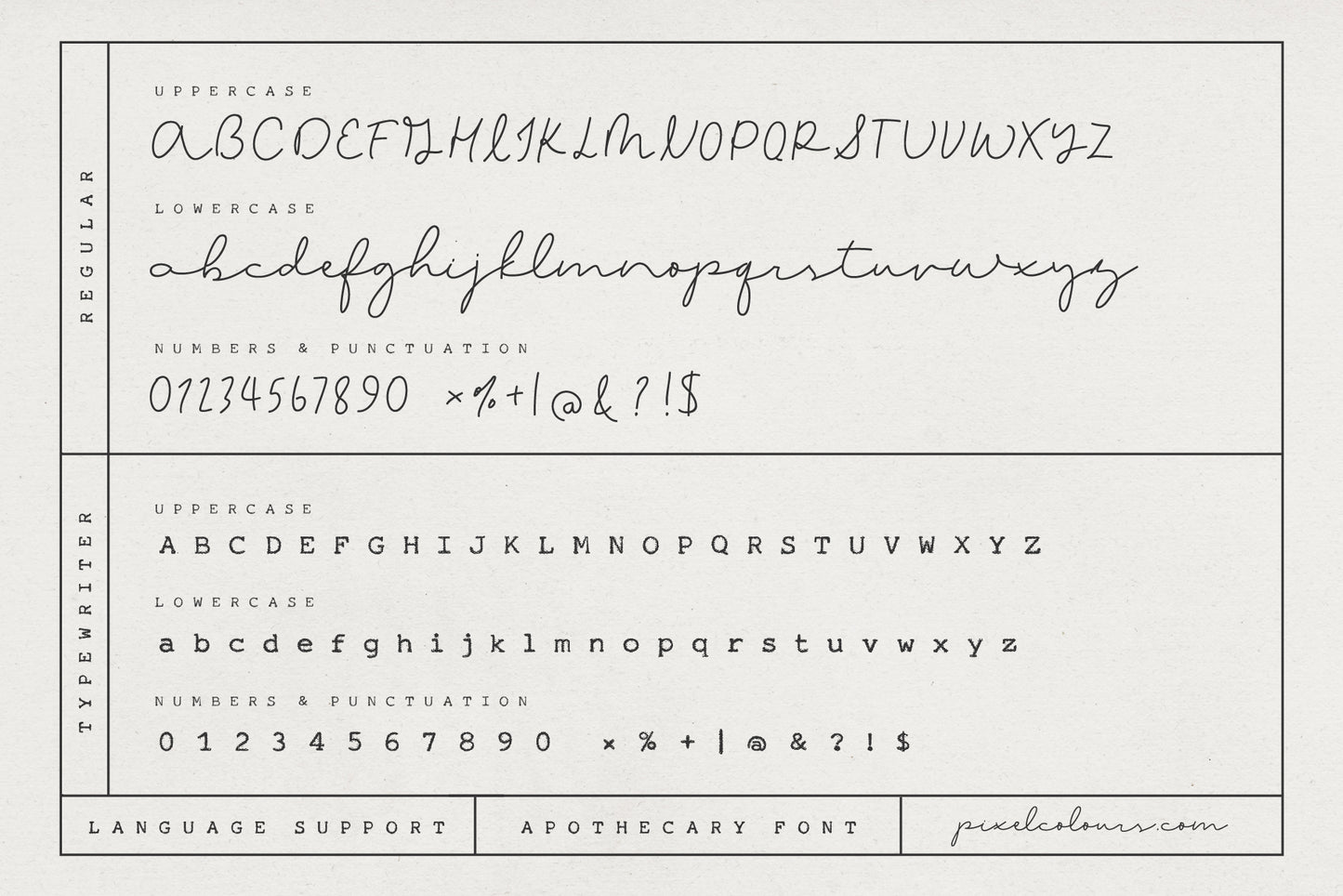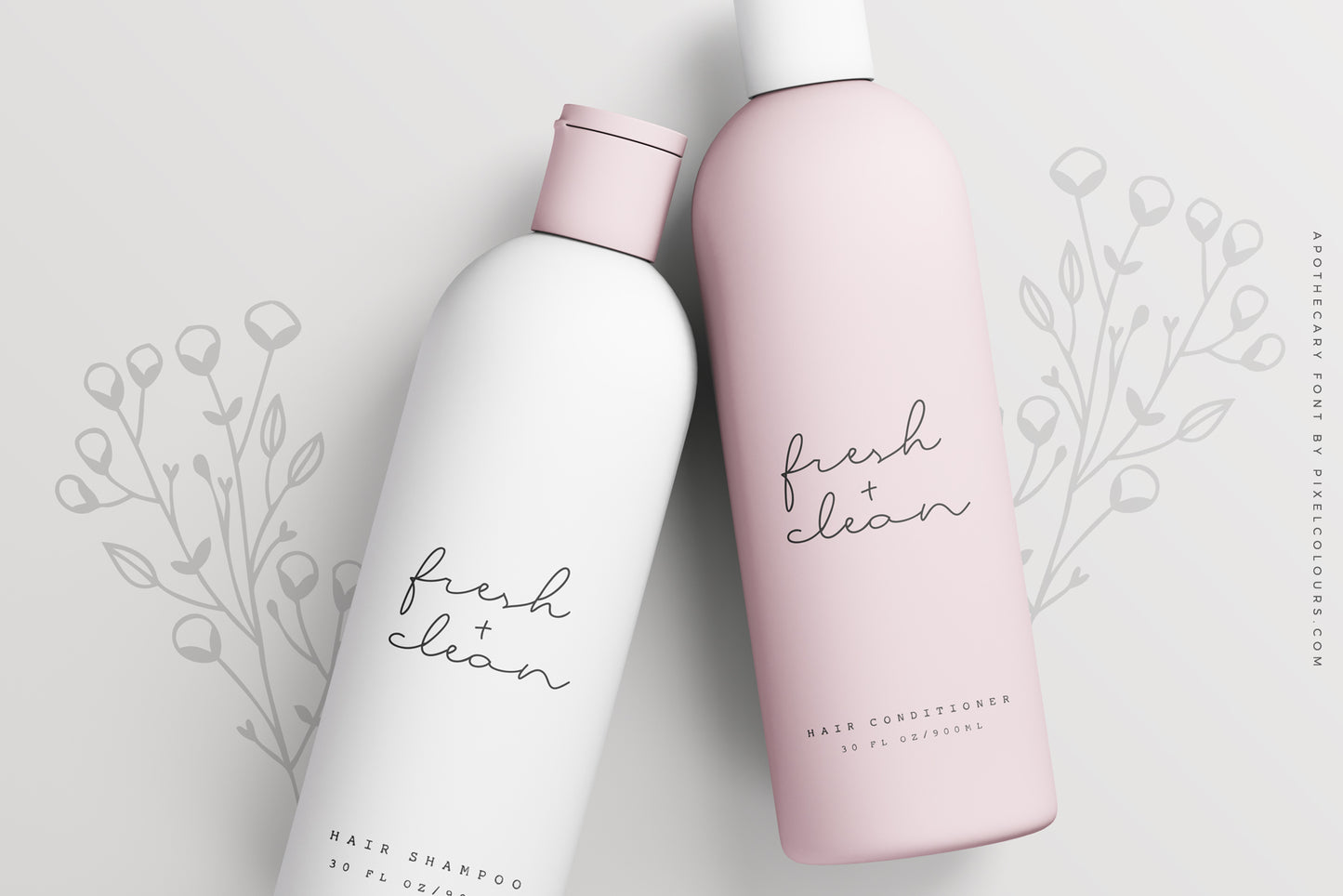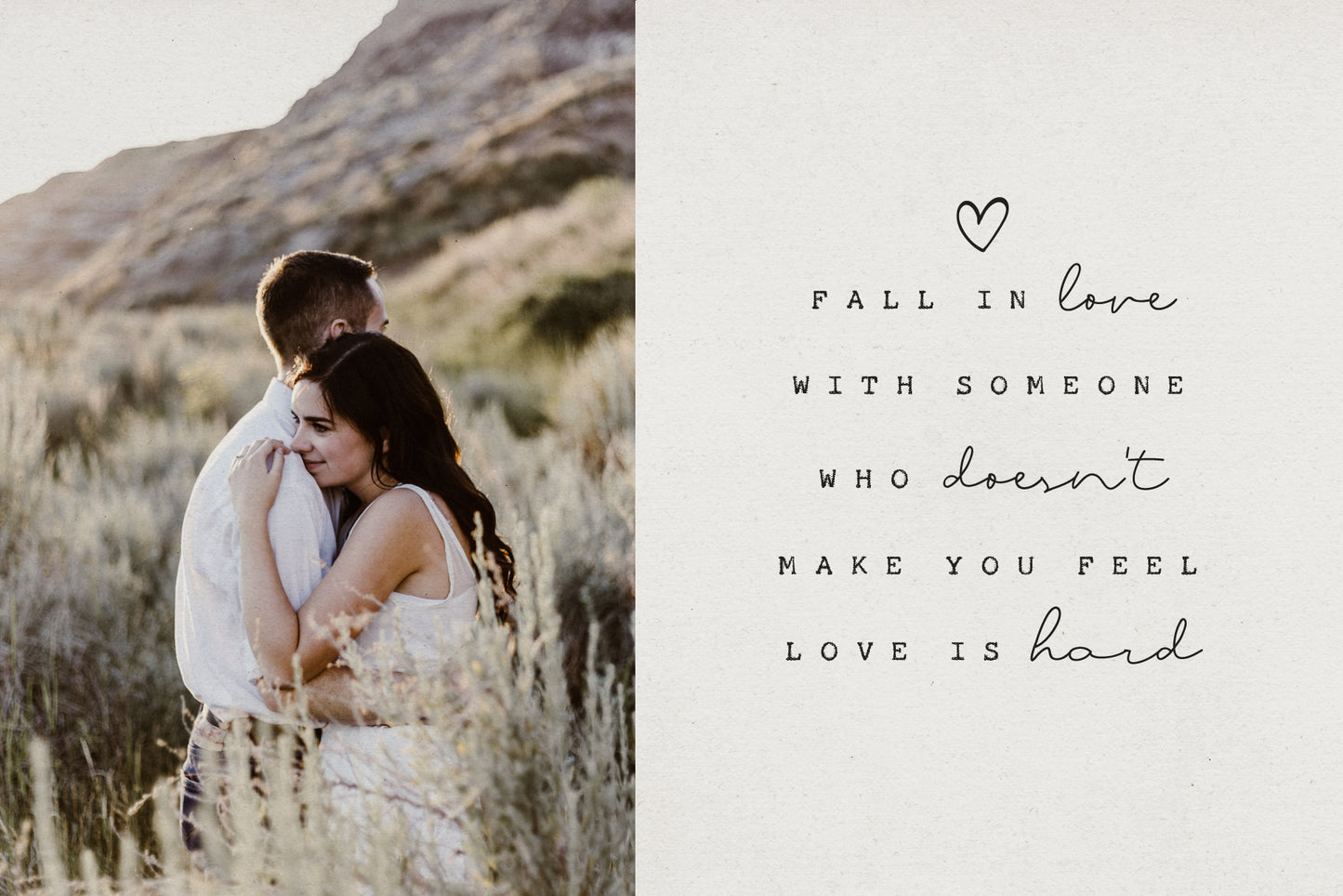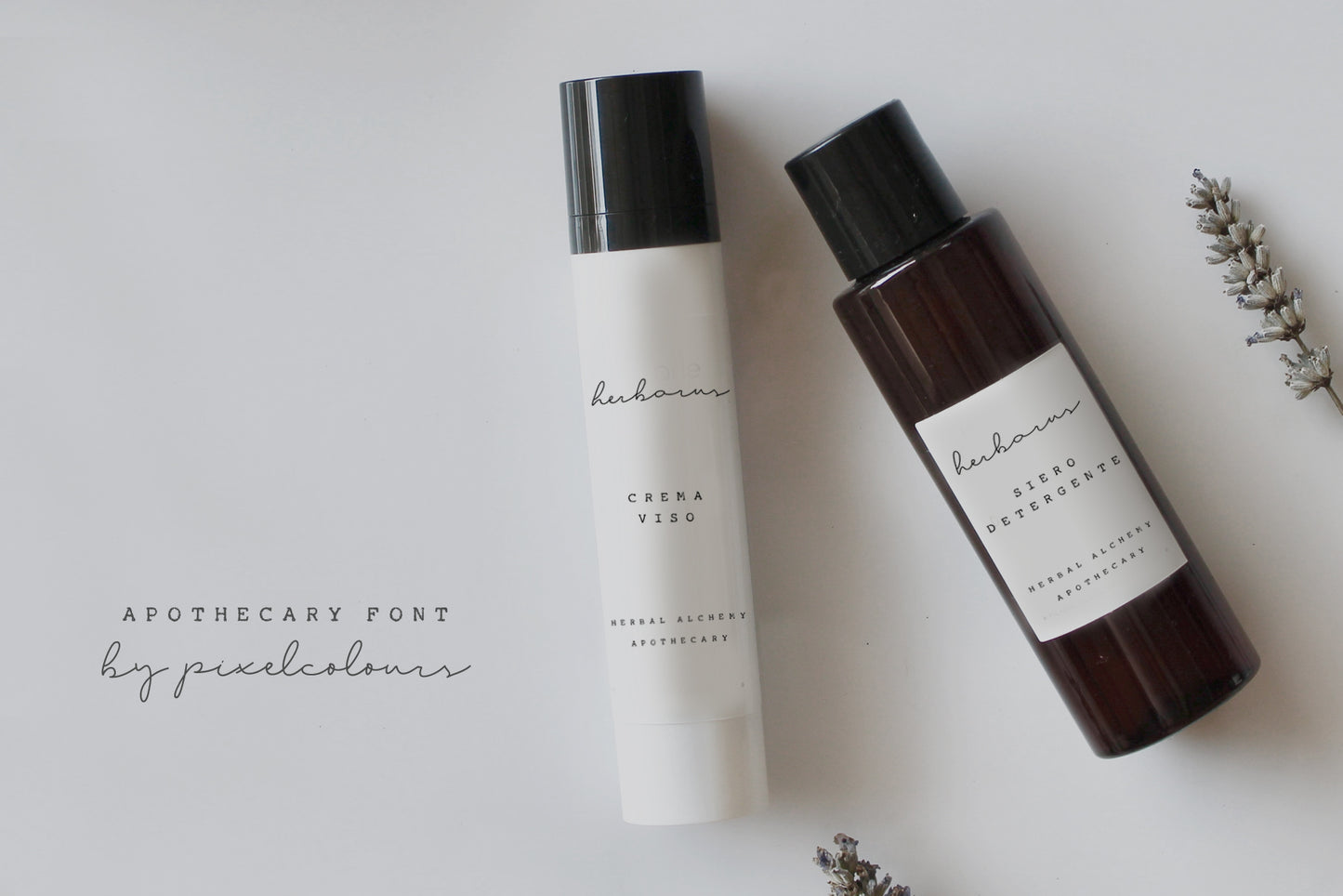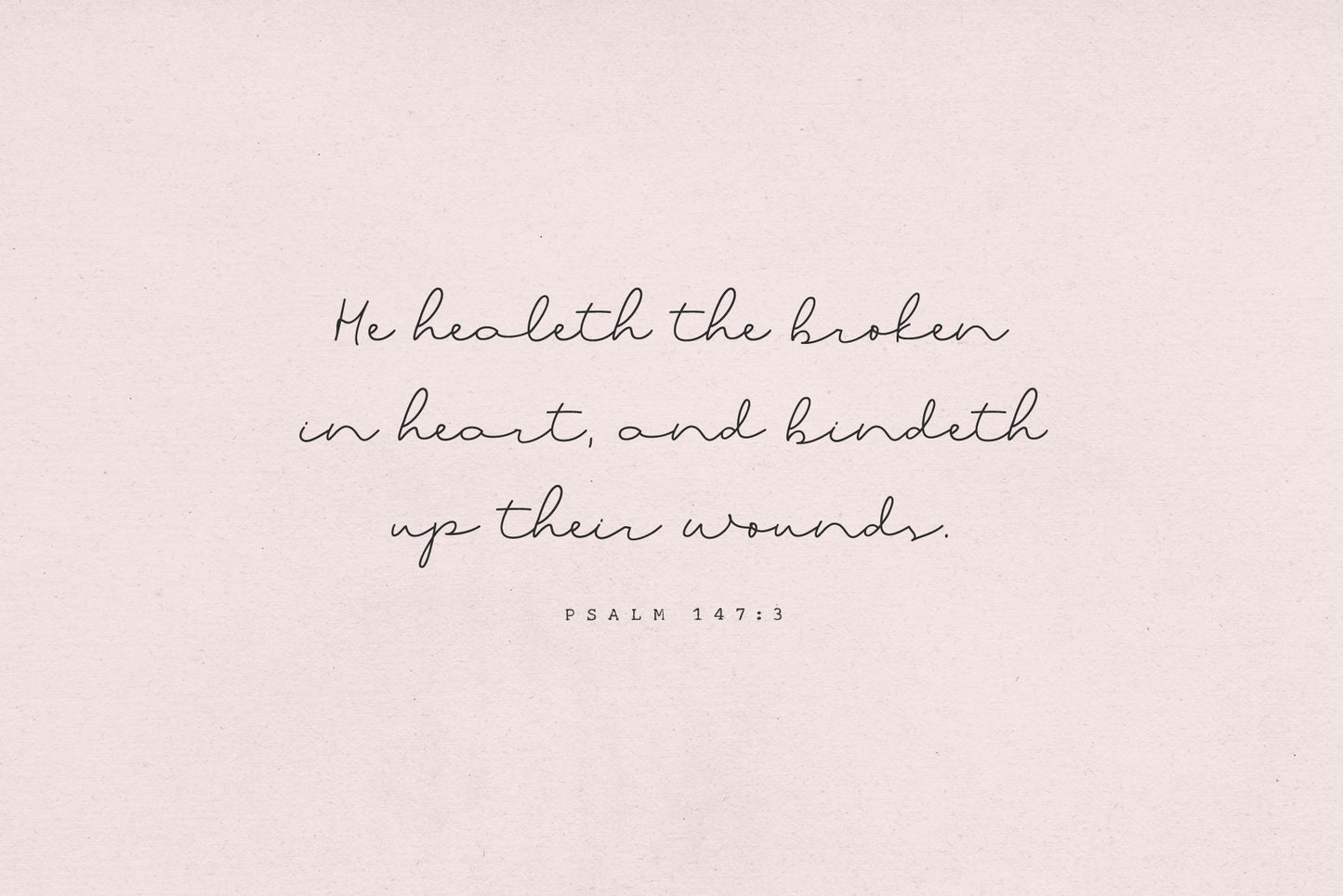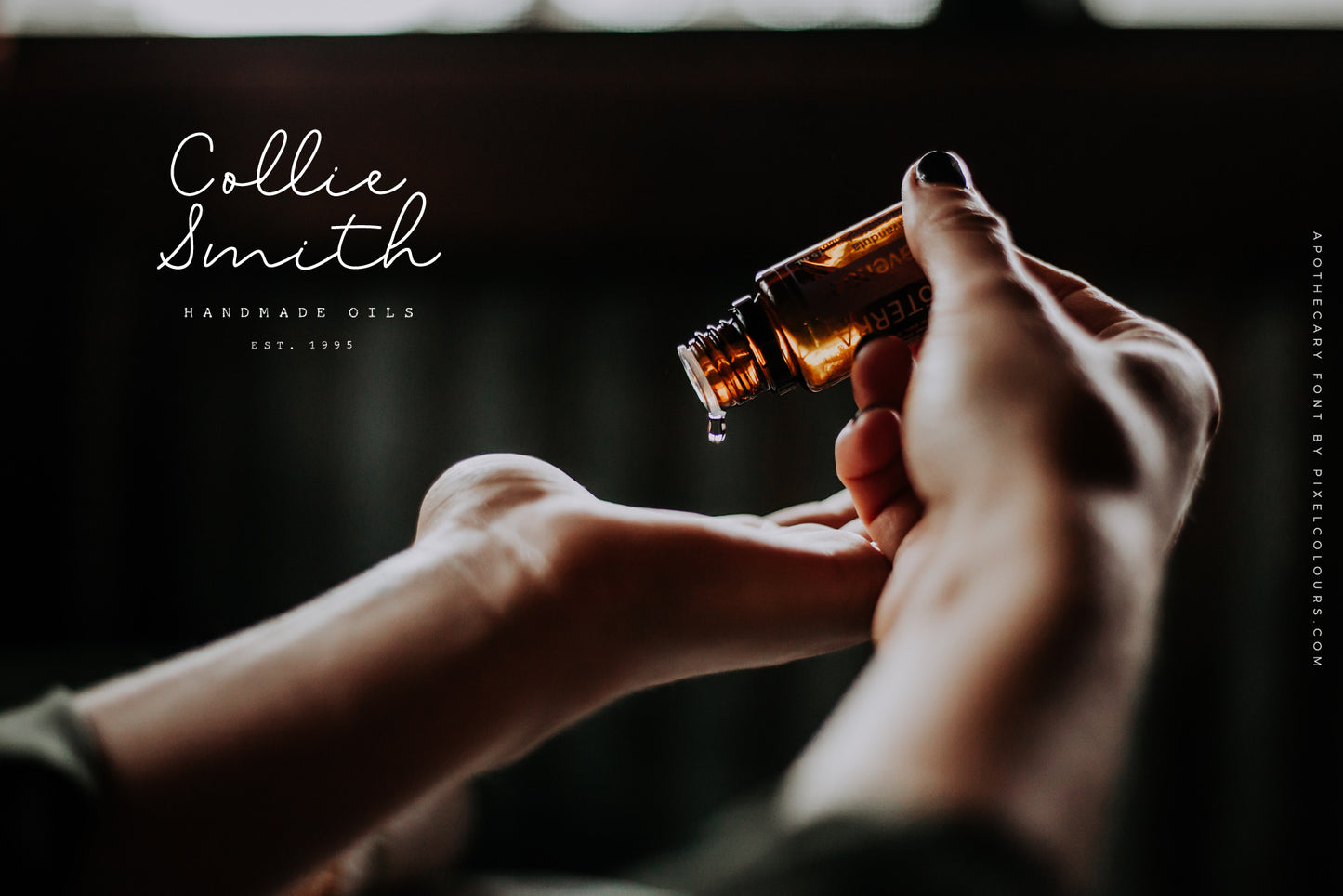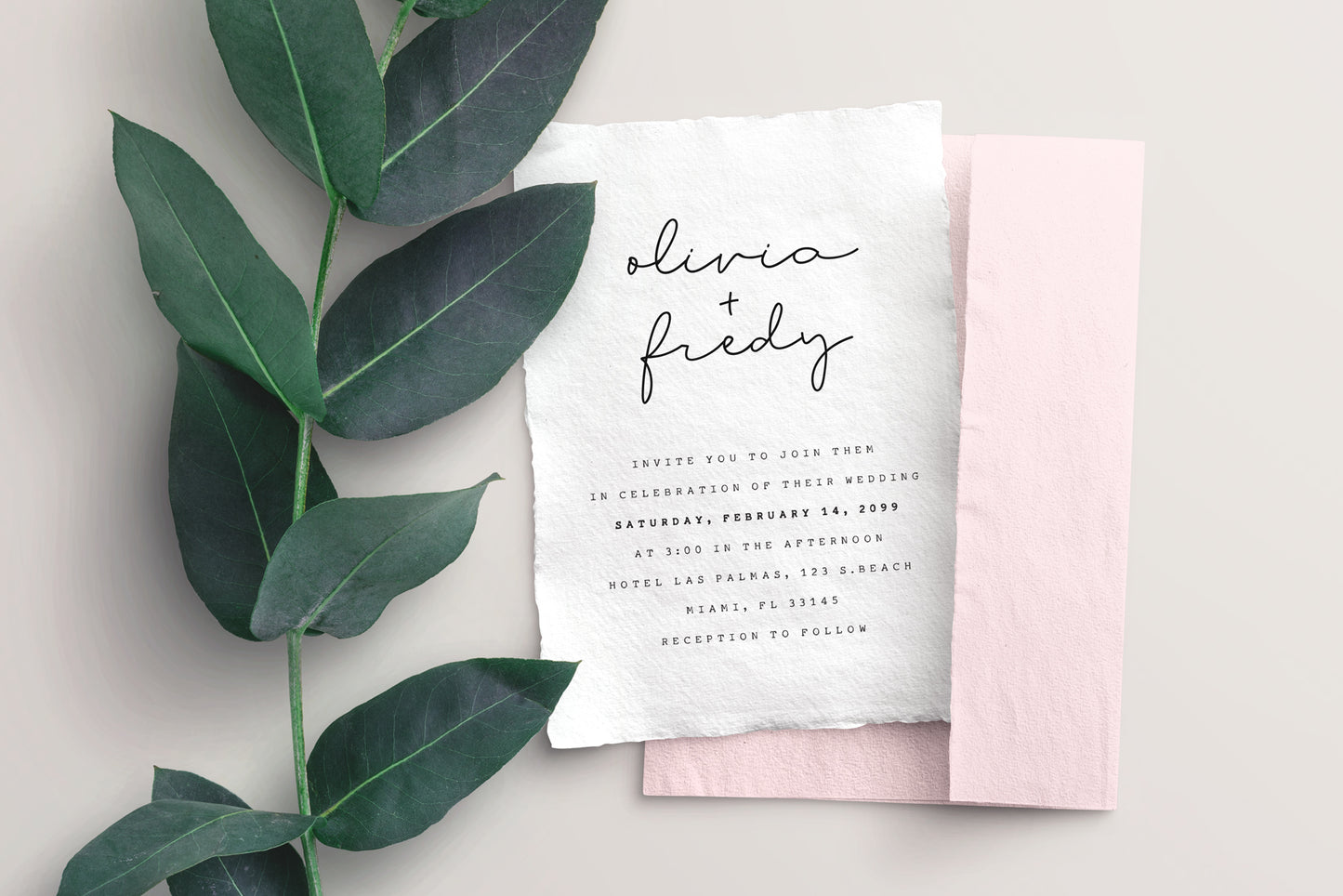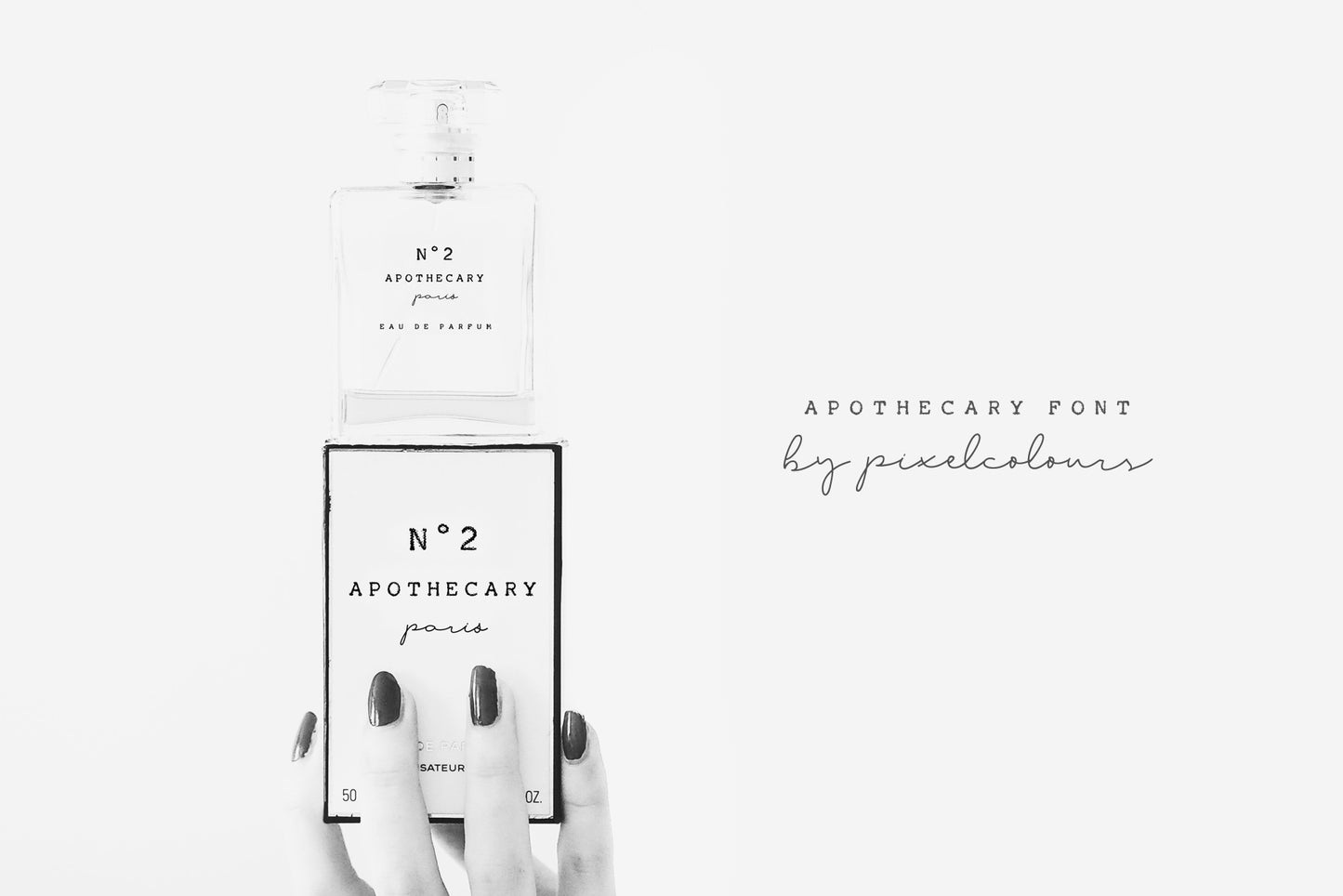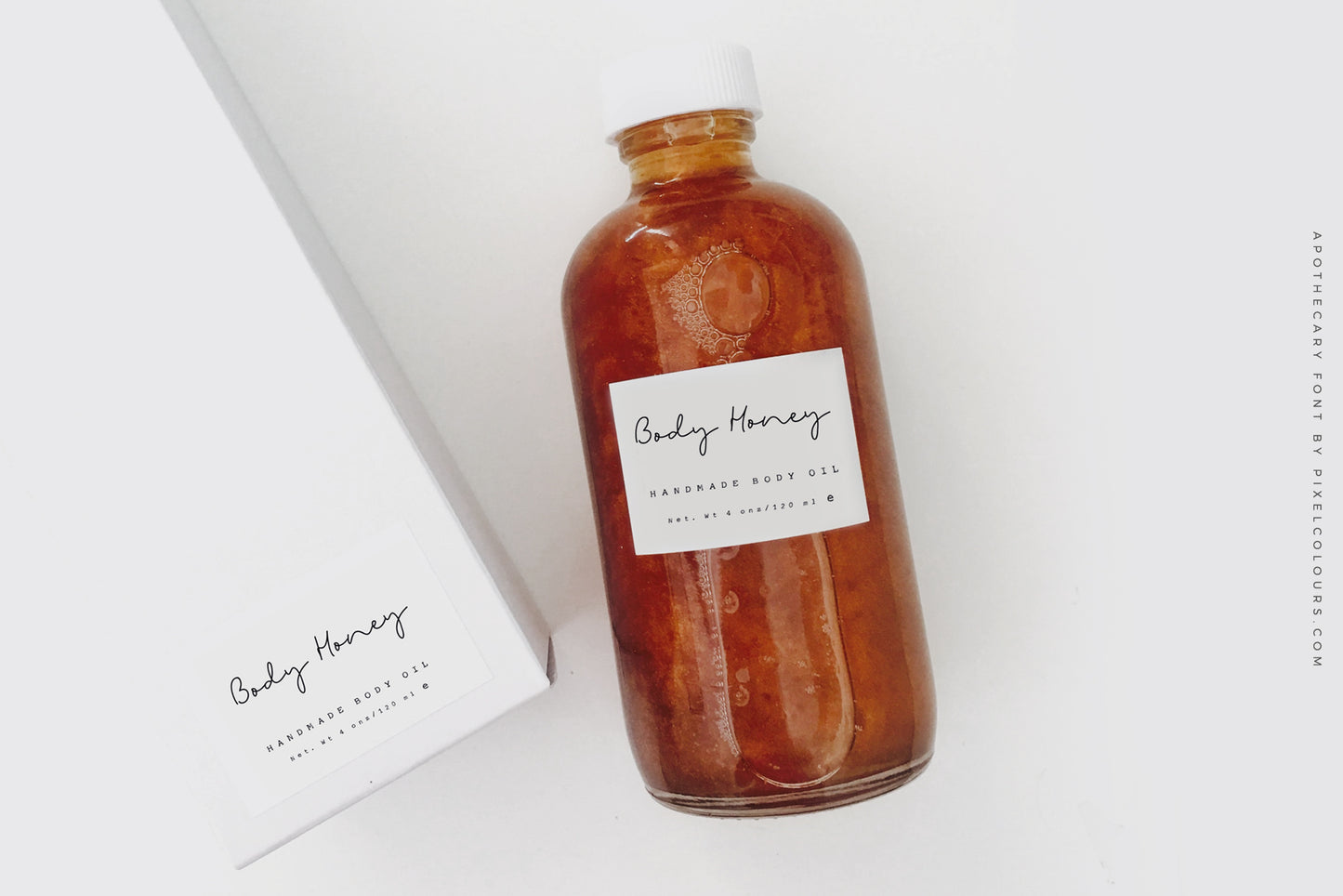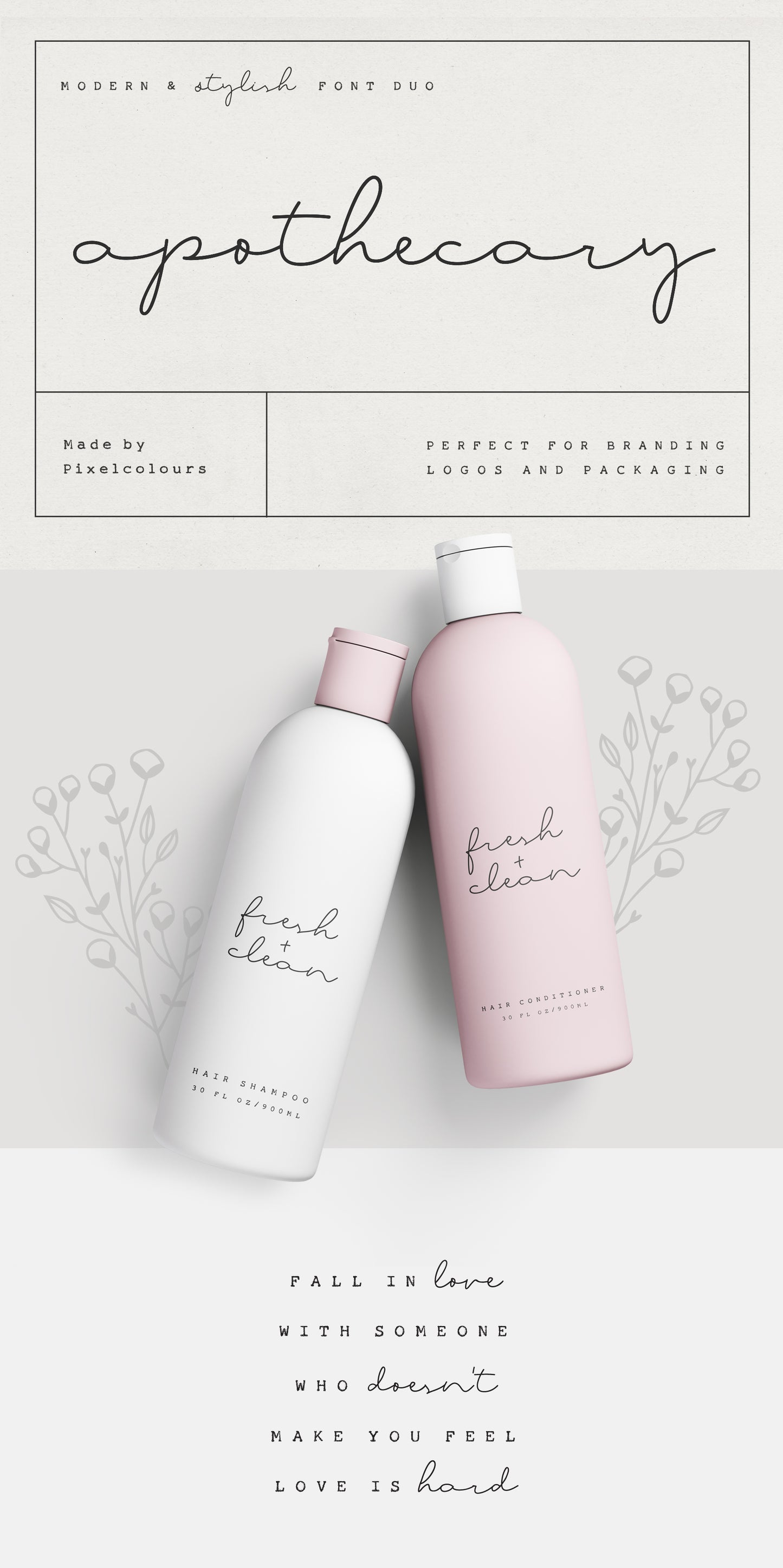
Apothecary Font Duo
Apothecary Font is a modern stylish font duo that includes a sweet flowing script font and a typewriter font made from an authentic typewriting. Combine both fonts to create beautiful logos and branding. Design professional apothecary and botanical labels and packaging or make elegant wedding invitations.
- Apothecary: a script flowy monoline font
- Apothecary Typewriter: an antique typewriter font perfect for small texts, taglines or info